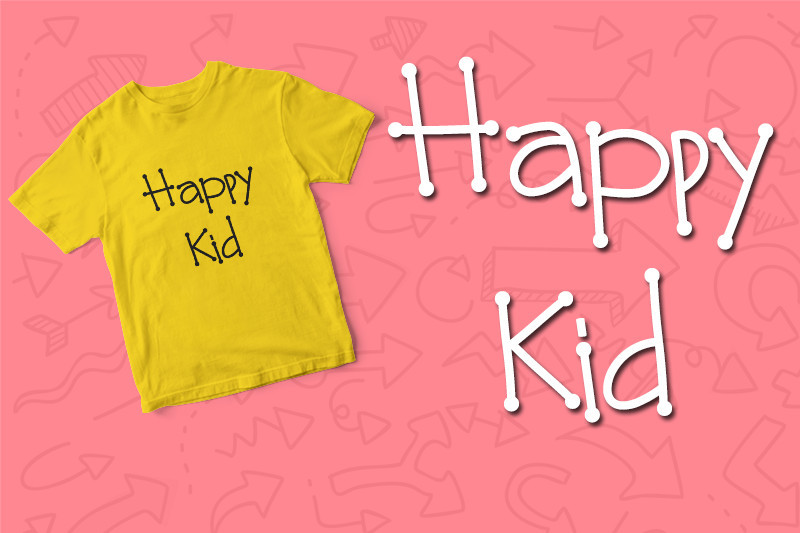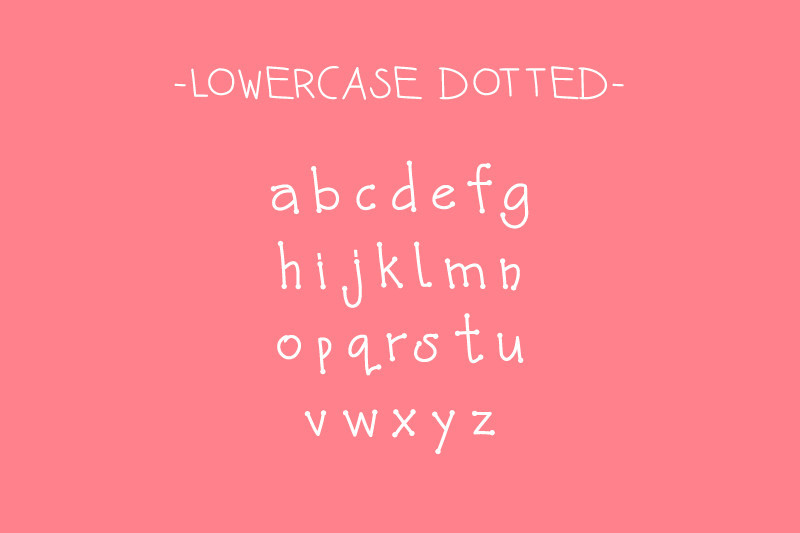
Cute Canvas Font
Cute Canvas Font – Handwriting Script Typeface introduces a delightful and whimsical charm to the world of typography. With its playful strokes and endearing characters, this typeface brings a touch of warmth and personality to any design project. The handwritten quality of Cute Canvas adds a sense of authenticity, as if each character was carefully crafted with a brush on a canvas, capturing the spontaneity and imperfections that make handwriting so unique.
What sets Cute Canvas apart is its versatility – whether used in digital or print media, it effortlessly infuses a sense of friendliness and approachability. The letters dance across the canvas with a lively rhythm, creating a visual symphony that resonates with a wide audience. This script typeface is perfect for projects that require a touch of innocence and sweetness, such as greeting cards, children’s book covers, or any design endeavor aimed at evoking a sense of joy and playfulness.
The attention to detail in Cute Canvas extends beyond its aesthetic appeal. Each character is meticulously crafted to maintain legibility while embracing the spontaneity of natural handwriting. The typeface strikes a harmonious balance between being charmingly cute and functionally effective, making it a versatile choice for designers seeking to convey a sense of genuine connection and lightheartedness in their work. With Cute Canvas, every word becomes a visual treat, inviting audiences to engage with the content in a delightful and memorable way.